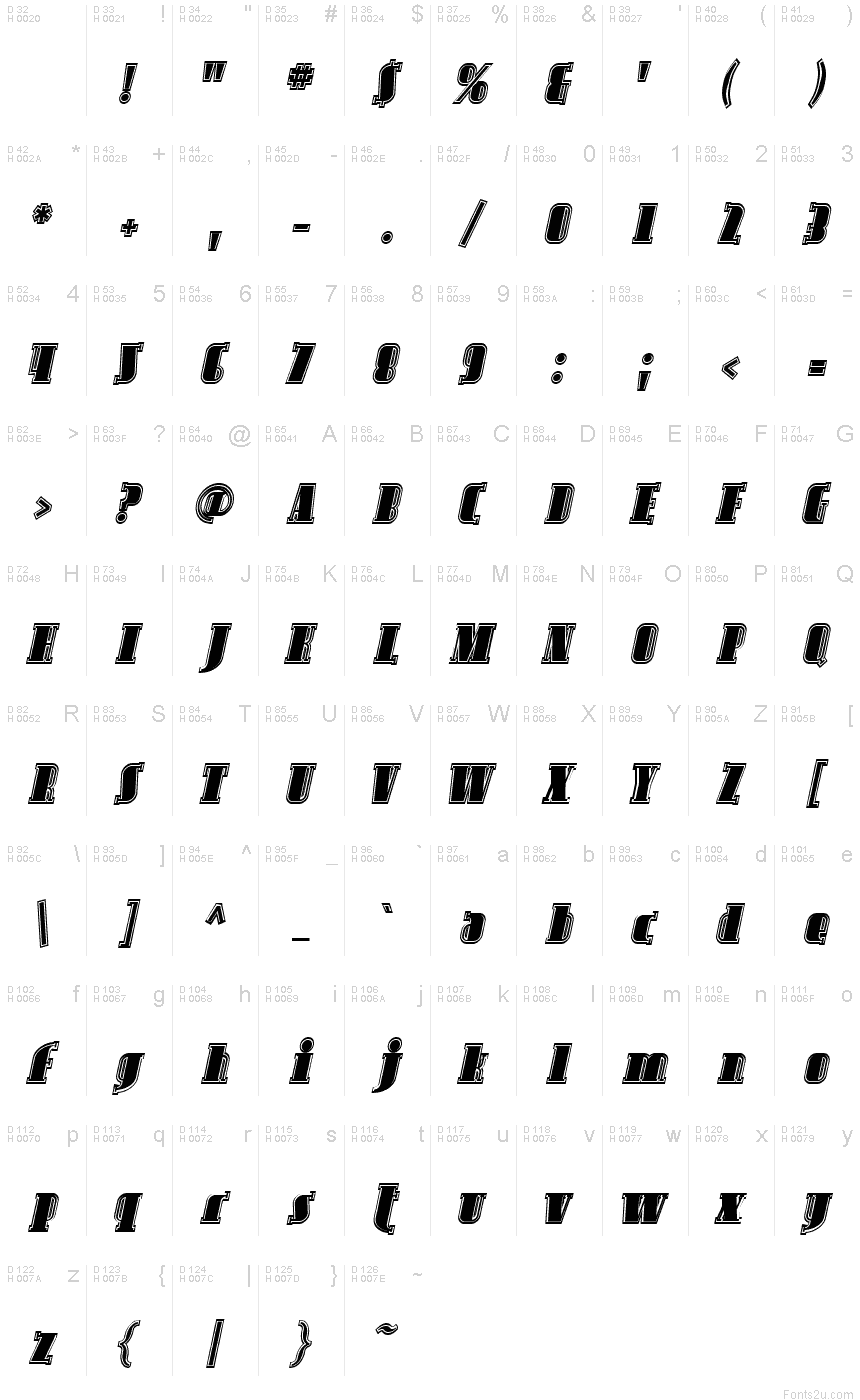
SF Avondale Inline Italic by Derek Vogelpohl of ShyFoundry is a free outlined varsity display font with broad, sharply cut capitals and a pronounced forward slant. The inset line recalls painted team names and old-school uniforms.
Striped jerseys, pennants, and mascot illustrations echo its layered contours, making the font a natural fit for sports posters and event graphics. It can also shape merchandise and entertainment branding with a competitive, vintage edge rather than a polished corporate look. The clearest audience is designers working on school athletics, local leagues, or retro sports promotions.